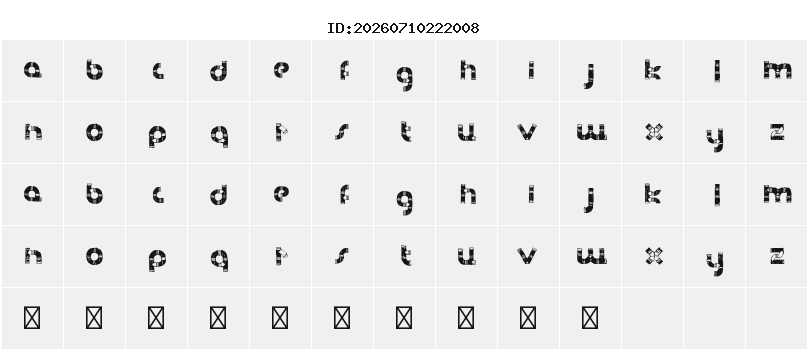
Handdrawn Pipe X Preview
• Font Name: Handdrawn Pipe X
• Full Font Name: HanddrawnPipeX-Regular
• PostScript Name: HanddrawnPipeX-Regular
• Character Count: 53
About Handdrawn Pipe X.otf
Handdrawn Pipe X.otf is a modern, elegant sans-serif font designed for ultimate readability and visual harmony. Perfect for branding, headlines, web design, and print materials.